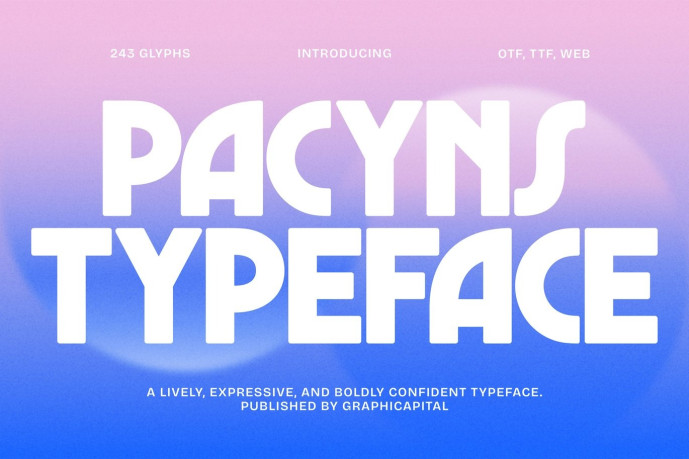
Pacyns Font
Designer: Graphicapital
Pacyns is a bold display typeface with rounded, solid, and modern letterforms. Smooth yet powerful, it delivers a friendly, energetic, and confident look—perfect for headlines and main titles in various design projects.
Ideal for branding, posters, headlines, packaging, album art, game visuals, and promotional designs. It adds personality to any creative project and helps your message stand out effortlessly.